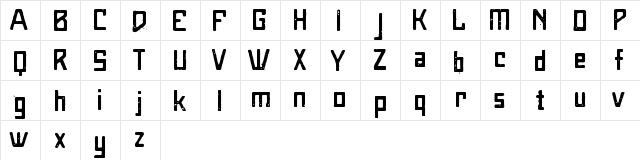
MaiersNr8 Regular
Design Context for MaiersNr8 Typeface
MaiersNr8 takes a measured approach to typography — its balanced proportions and neutral character make it a reliable workhorse for both digital and print work.